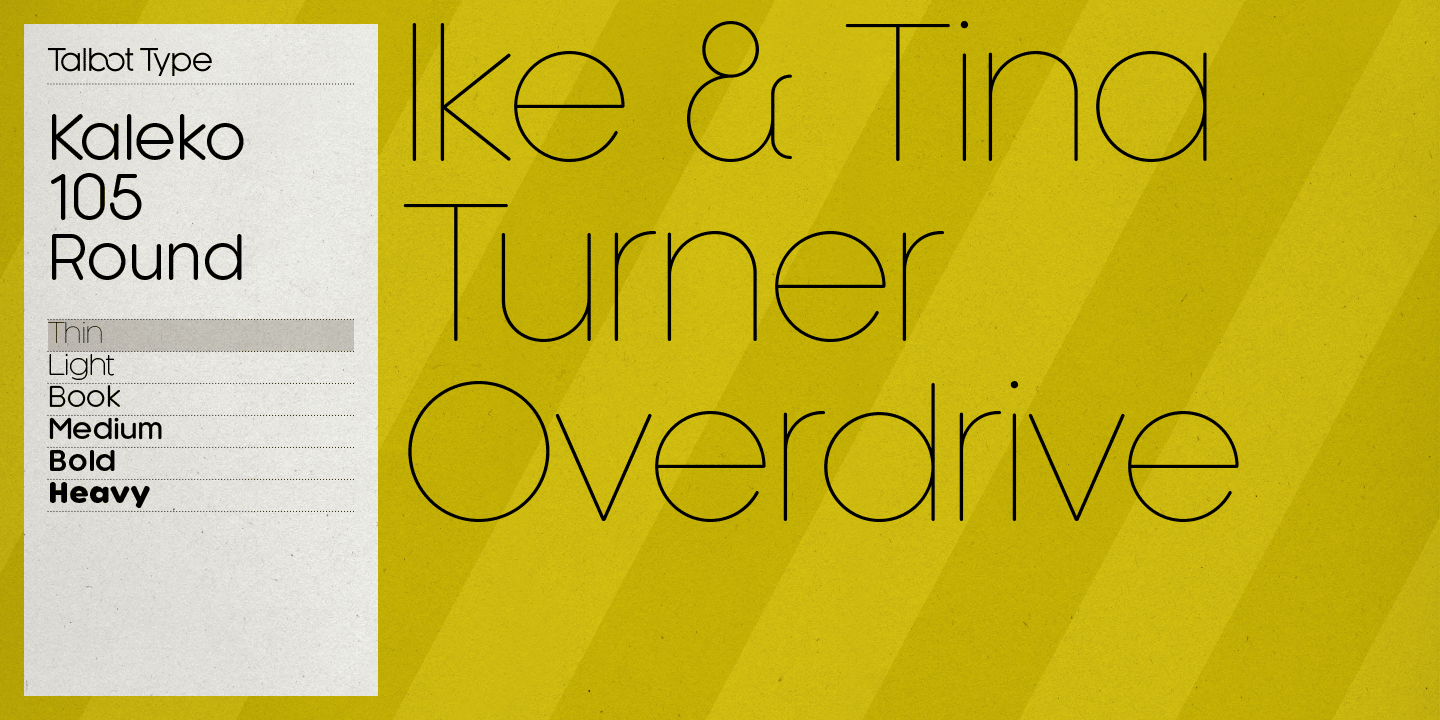
Kaleko 105 Round Font is a warm and friendly sans-serif typeface, characterized by its soft, rounded terminals and clean, approachable design. It's perfectly suited for designs that aim for a contemporary, humane, and inviting aesthetic. Imagine it gracing the packaging of artisanal food products, adding a welcoming touch to children's educational materials, or providing clear and friendly information on modern health and wellness websites. Its gentle curves and excellent legibility also make it an ideal choice for crafting engaging social media graphics, designing comforting brand identities for small businesses, and creating intuitive user interfaces for apps. Whether you're aiming for a wholesome, minimalist, or subtly playful look, Kaleko 105 Round Font delivers a delightful and highly readable visual presence.
What makes Kaleko 105 Round Font truly exciting is its remarkable balance of softness and professionalism. The rounded edges remove any harshness, making the text feel incredibly approachable and easy on the eyes, without sacrificing clarity or modern appeal. This makes it an outstanding choice for projects where you want to convey a sense of trustworthiness, friendliness, and quiet sophistication. Its versatility allows it to adapt beautifully from large display text, where its unique personality can truly shine, to smaller body copy, where its legibility remains paramount. Kaleko 105 Round Font stands out by offering a unique blend of contemporary design and a comforting, human touch, making it a valuable asset for any designer.
The Kaleko 105 Round Font family typically offers a comprehensive range of weights, ensuring vast flexibility for diverse design needs. You can expect a broad spectrum from a delicate Thin or Light, perfect for subtle accents and airy layouts, to a robust Bold or Black, ideal for commanding headlines and strong statements. Common weights usually include Regular, Medium, and Semibold, each meticulously designed to maintain the font's characteristic rounded integrity and excellent readability. Furthermore, many families will also offer corresponding Italic versions for each weight, providing even more design flexibility and stylistic variations. This extensive range ensures that Kaleko 105 Round Font Free Download can be effectively utilized to create cohesive, appealing, and professional typographic designs across all your projects.